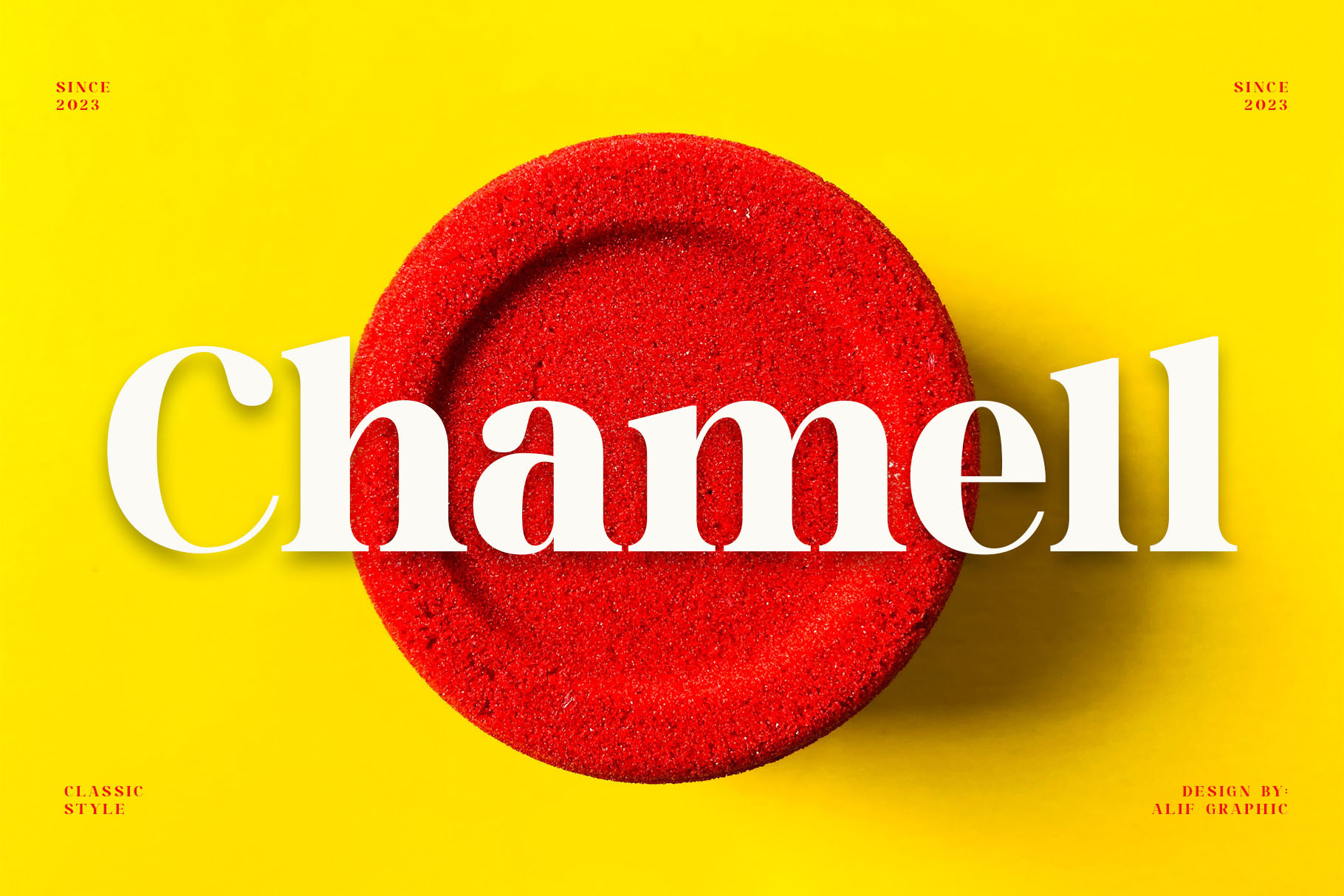
Chamell - Modern Serif Typeface
Introducing 'Chamell' Font:
Presenting "Chamell" – a modern serif font that seamlessly marries sophistication with contemporary style. Characterized by clean lines and elegant serifs, Chamell is the ideal choice for projects that aspire to a refined and timeless aesthetic. Whether incorporated into editorial design, branding, or other applications, this font radiates a sense of modernity while retaining a classic charm. Elevate your typography with Chamell, where tradition meets the present in a harmonious serif design, offering a versatile and stylish choice for various design contexts.
Ideal for:
- Visual Identity Projects
- Advertising Campaigns
- Social Media Designs
- Personal Branding
- Aesthetic Designs
- Ready for Creative Expression
- Immaculately Crafted Letters